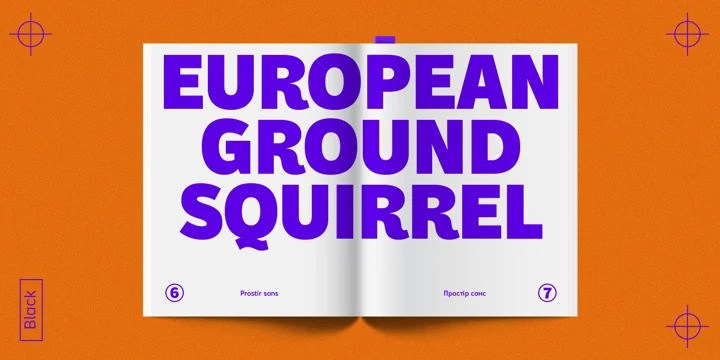
Prostir Sans Font
Prostir Sans Serif Font
This font is a contemporary and classic sans serif. it inspired by the 90s poster & magazine advertising. Has large x-heights and small ink traps. The typeface looks emotional and feels free, combining smooth curves and contrasting connections.
It consists of 2 conditional parts — Basic and Display, which differ in the thickness of diacritical symbols and additional elements. This contrast adds unusual rhythm and liveliness. It has 7 grades in weight and and supports variable, adjustable on two axes, which allows you to fine-tune the desired style with sliders..